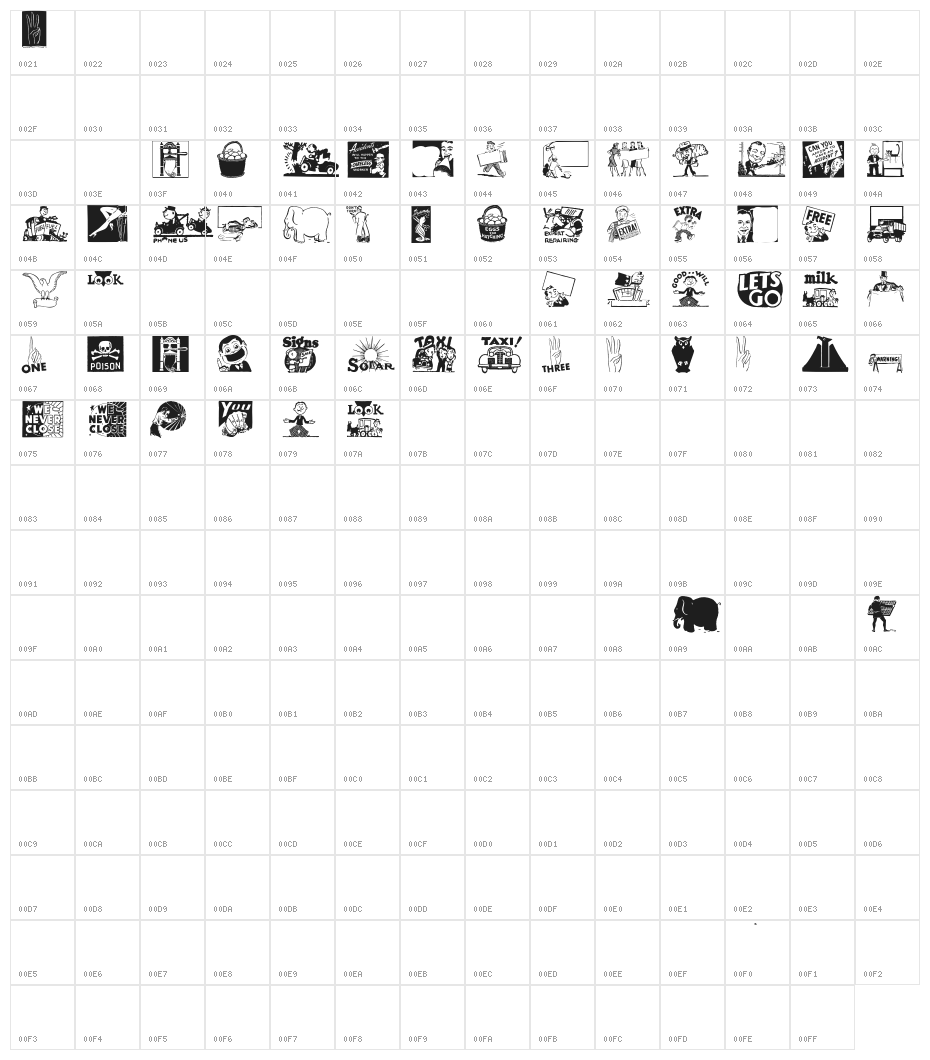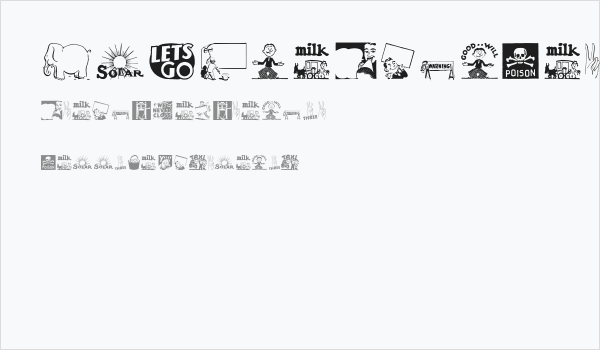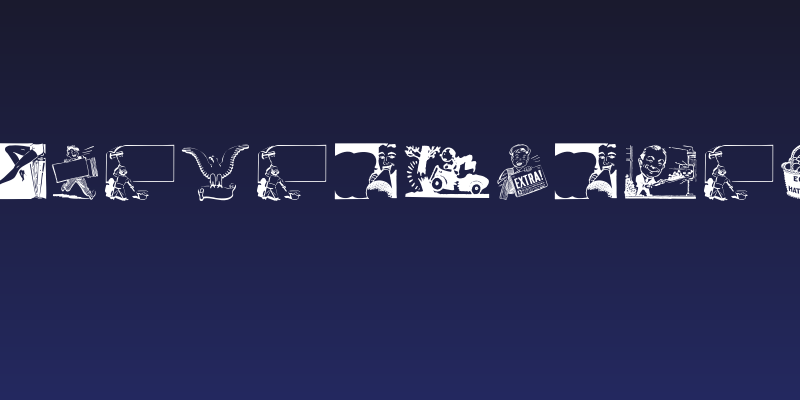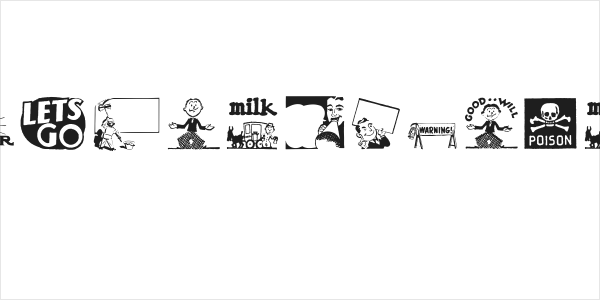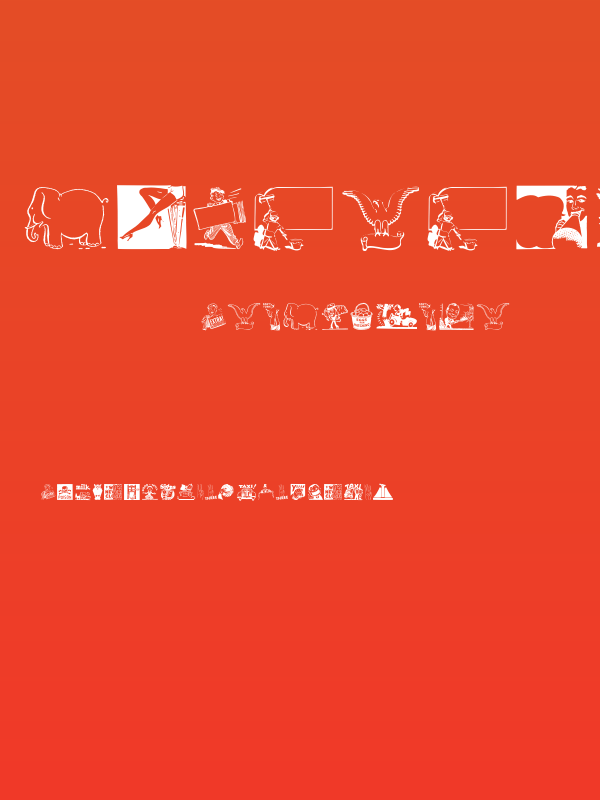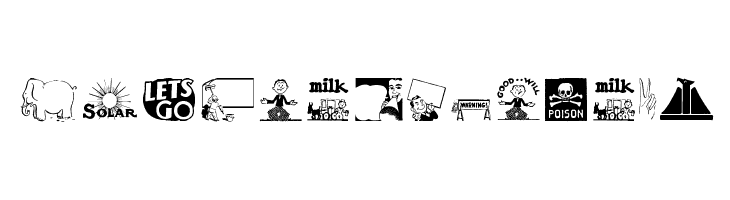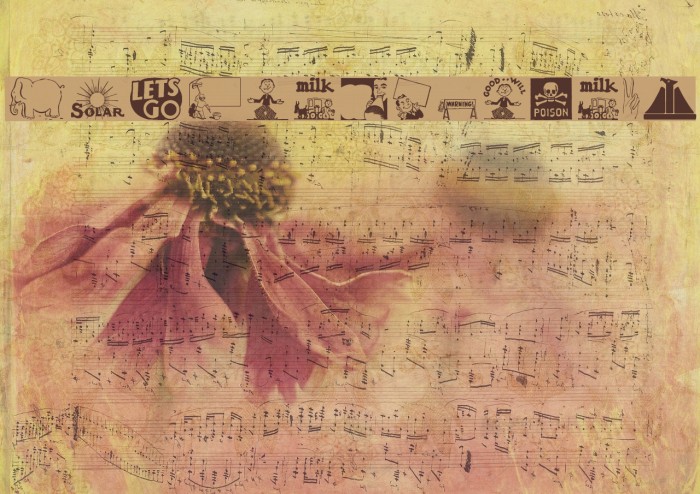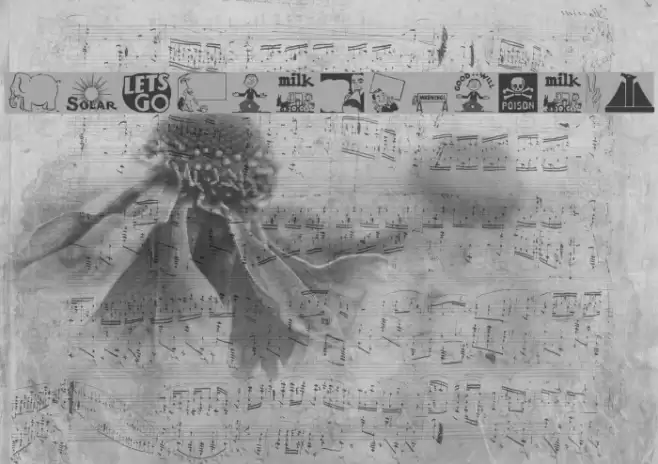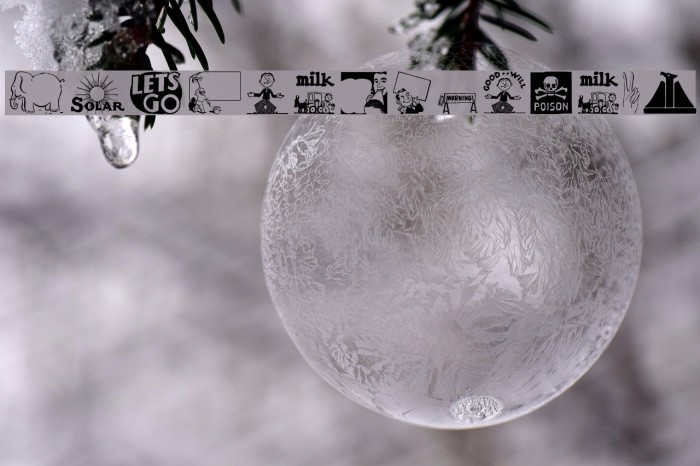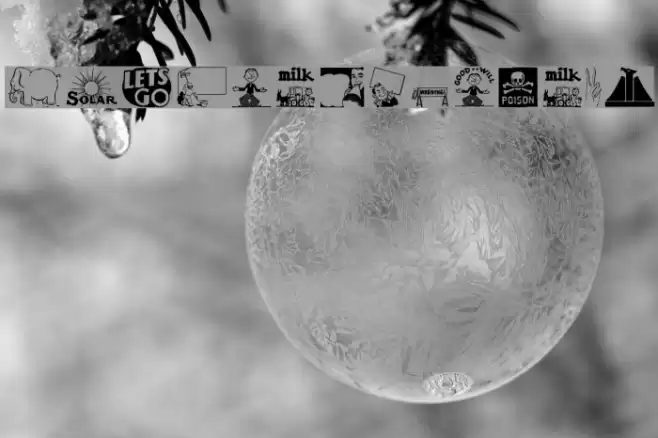
OldEyeCatchers Font
OldEyeCatchers Description
A collection of vintage, hand-drawn cartoon illustrations and signage elements, featuring bold outlines, playful characters, and retro commercial motifs. The set includes a mix of text and pictorial icons, often with exaggerated expressions and dynamic poses, reminiscent of mid-20th-century advertising art.
| Overall Style | Vintage, Decorative |
| Use Case | Headlines, Logos, Posters, Themed Graphics |
| Proposed Projects | Vintage posters, retro advertisements, playful branding, themed event graphics, nostalgic packaging. |